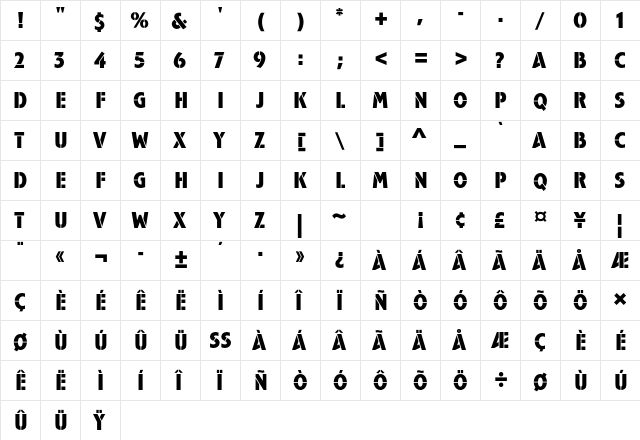
Campaign Std Regular
| Designer | Alan Meeks |
Design Context for Campaign Std Typeface
Campaign Std is a composed and adaptable typeface that performs quietly and consistently across a wide range of design contexts.
Originally released in 1997, this typeface is available in OpenType (OTF) format.